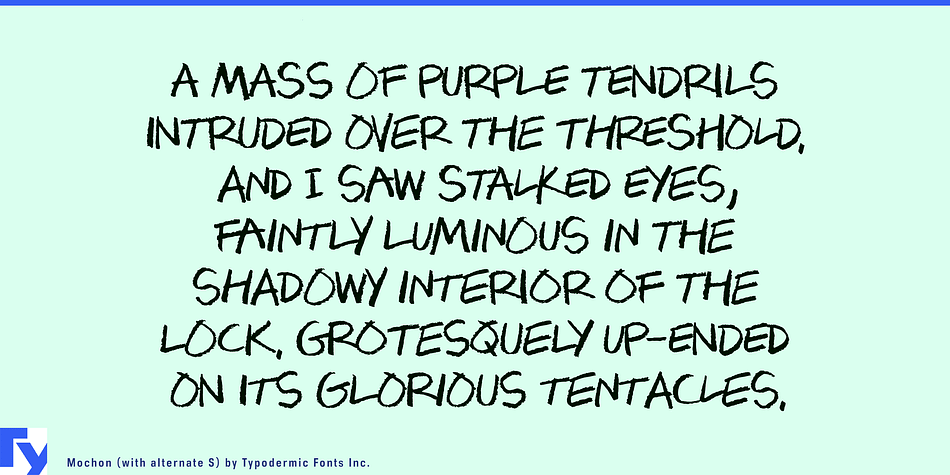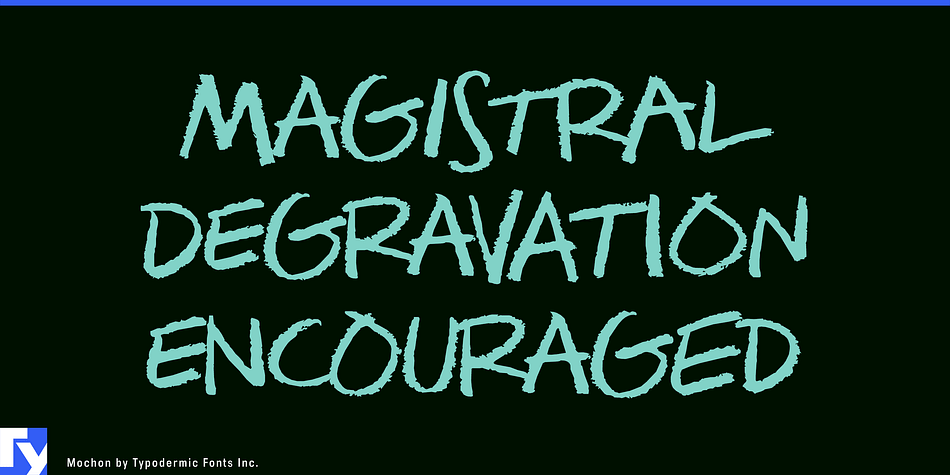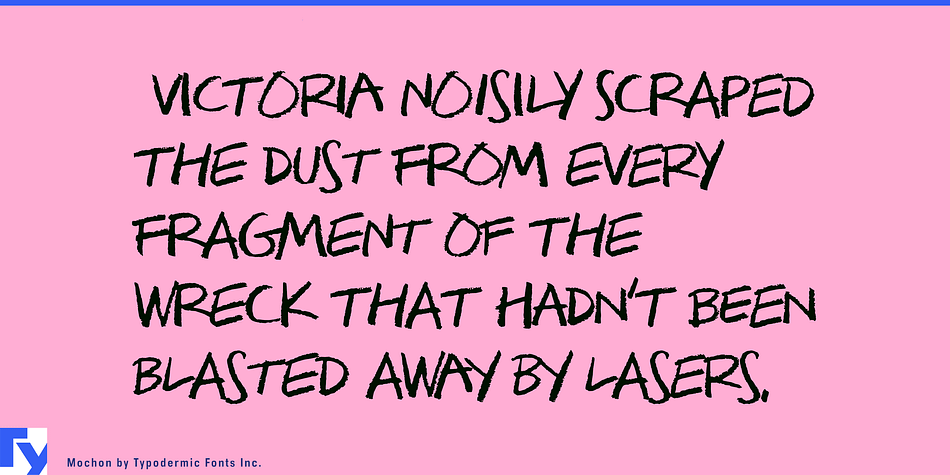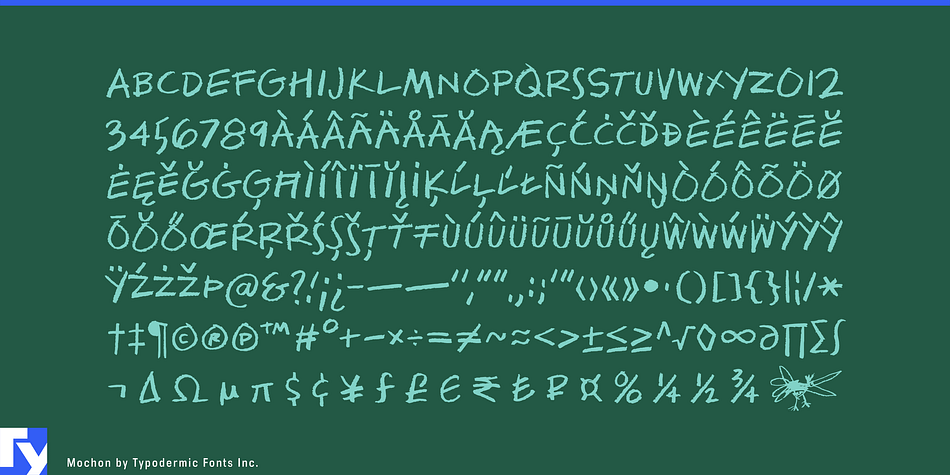
Mochon is a hand display font published by Typodermic Fonts Inc.
Mochon is a hand lettered display typeface based on the lettering of Donald Mochon. Don was the dean of the RPI school of Architecture until 1966. He was an immensely generous and special person who delighted all with his erudite/hilarious artwork. With luck, some of his madcap energy will make its way into your designs.
Mochon automatically shuffles alphanumeric variations for a more bouncy effect. The letter “I” automatically sprouts serifs in initials and possessive use. An alternative letter S is available in applications which support OpenType stylistic alternates.